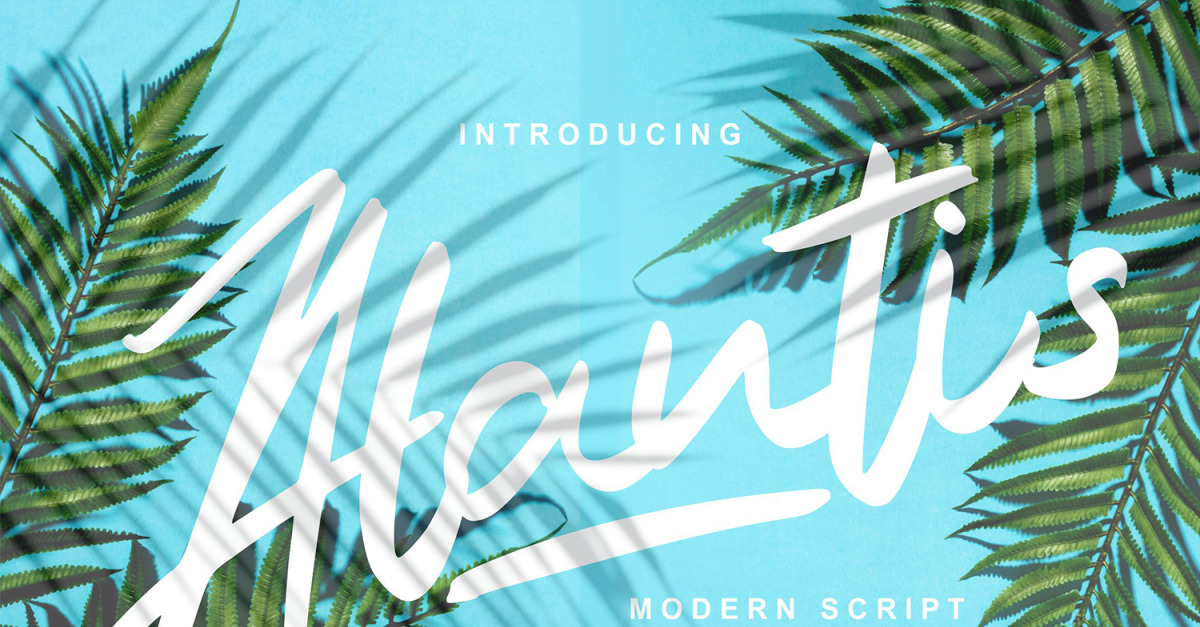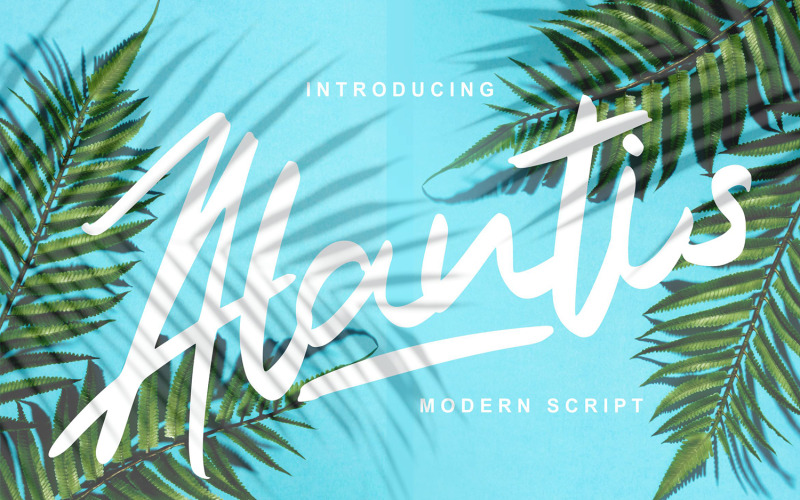
Alantis | Modern Cursive Font
**Alantis | Modern Script Font** with a calligraphy style, So beautiful on invitation like greeting cards, branding materials, business cards, quotes, posters, and more!